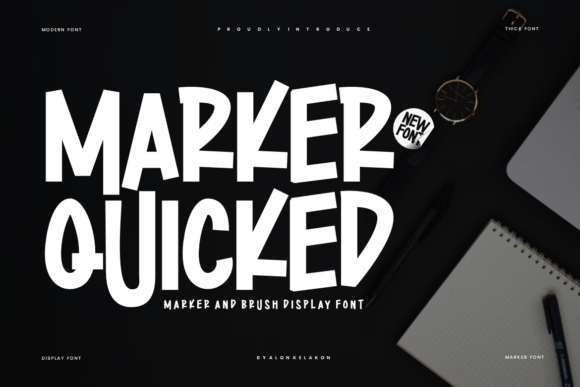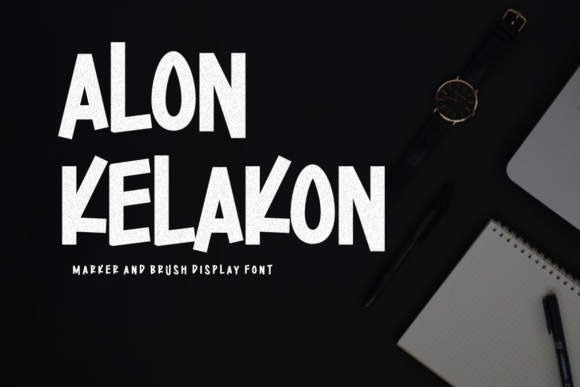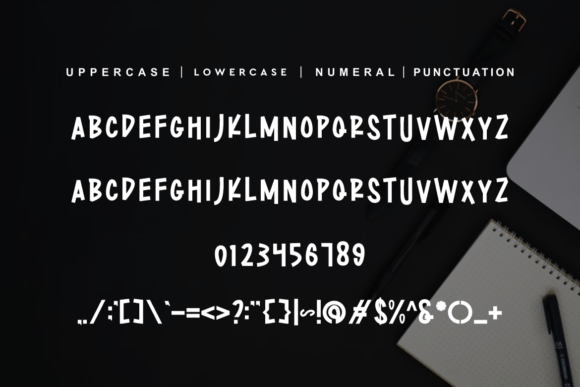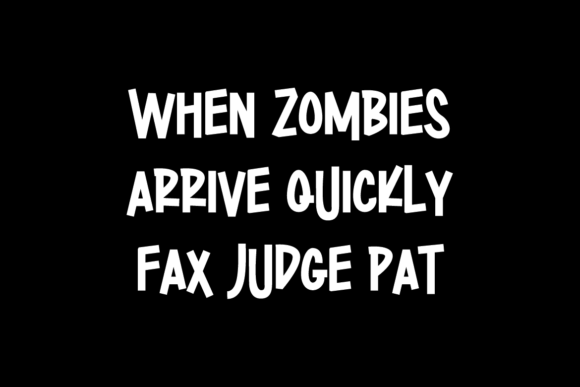
Marker Quicked Font: A Bold Handwritten Display Font for Crafts!
About the Marker Quicked Font
Elevate your designs with Marker Quicked Font, a font that combines sophistication with readability. Marker Quicked is a sweet and friendly handwritten font. Its natural and unique style makes it incredibly fitting to a large pool of designs. The only limit is your imagination!
Marker Quicked’s friendly, informal style is ideal for projects requiring a hand-drawn feel, such as branding for children’s products, invitations, short social media posts, or packaging design. It works exceptionally well in headlines and short text blocks where its charming irregularities add personality. However, its handwritten nature makes it unsuitable for large blocks of body text or user interfaces, where legibility is paramount.
Consider pairing Marker Quicked with a clean sans-serif like Open Sans for a balanced contrast, or a playful geometric sans-serif such as Futura for a more modern feel. For a touch of elegance, a delicate serif like Lora would complement its informal charm.
The font’s core personality is undeniably playful and approachable, lending itself to brands focused on warmth, approachability, and a handcrafted aesthetic.
Marker Quicked Font Usage Examples
Marker Quicked Font Example